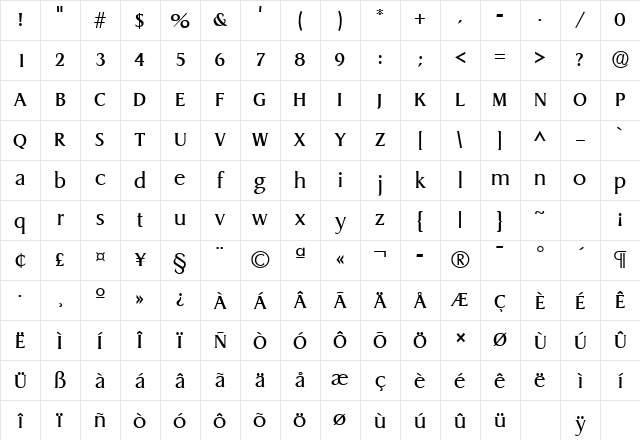
Llewelyn SF Regular Free Font
Llewelyn SF Regular
Llewelyn SF Family
Design Context for Llewelyn SF
Llewelyn SF is a composed and adaptable typeface that performs quietly and consistently across a wide range of design contexts.